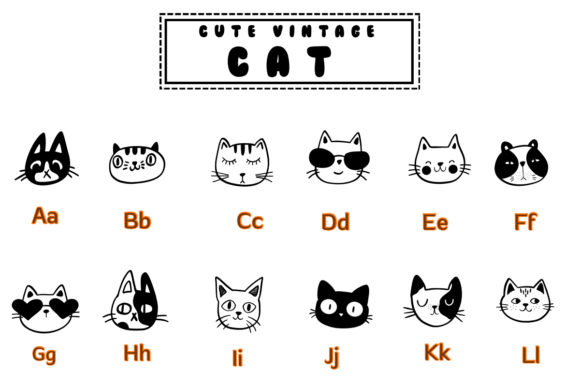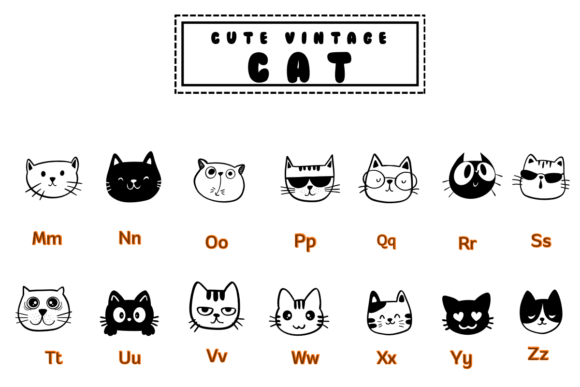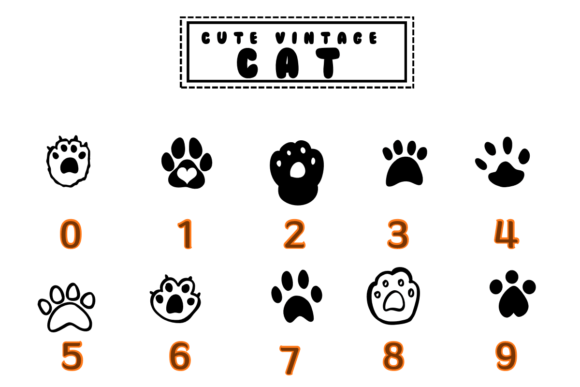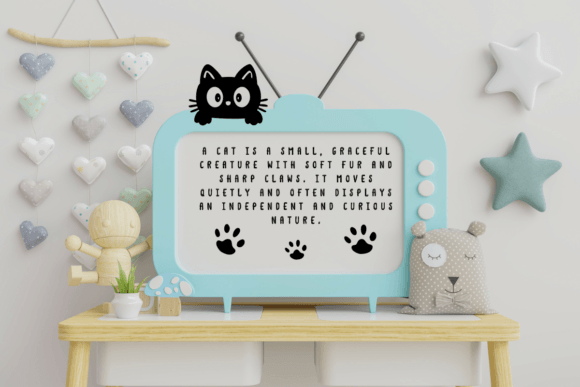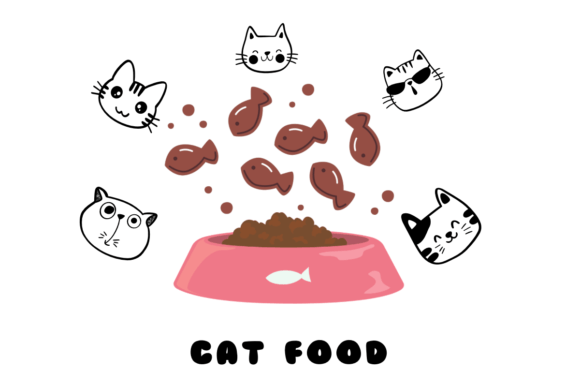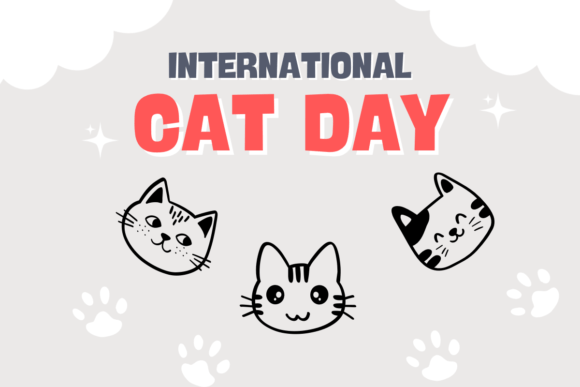
Introduction to Cute Vintage Cat Font
Cute Vintage Cat is a dingbats font with a cute feline theme.
This font can enhance your creative projects such as wedding invitations, DIY, crafts, decorations, logos, and many other creative ideas .
Key Features of Cute Vintage Cat Font
Why Choose Cute Vintage Cat Font?
Cute Vintage Cat Font offers exceptional quality and versatility, making it a valuable addition to your design toolkit. Whether you’re creating for personal projects or commercial use, Cute Vintage Cat Font delivers professional results.